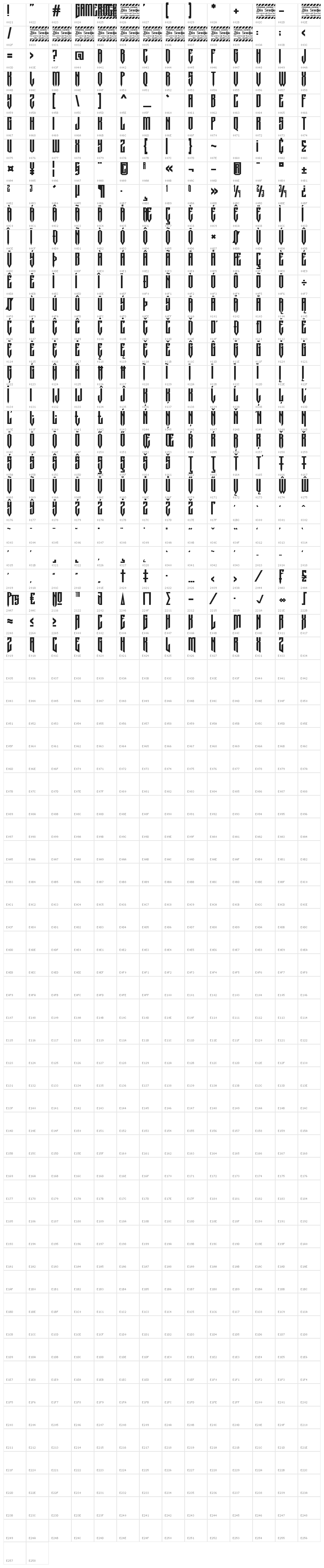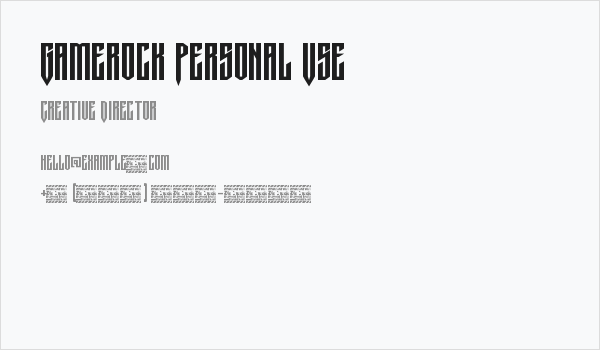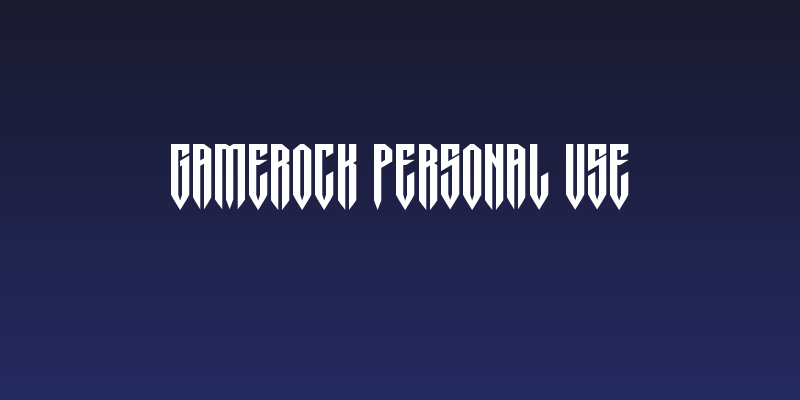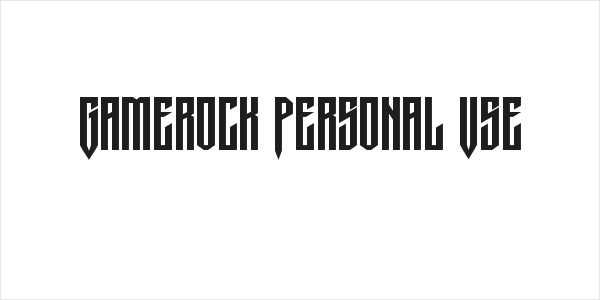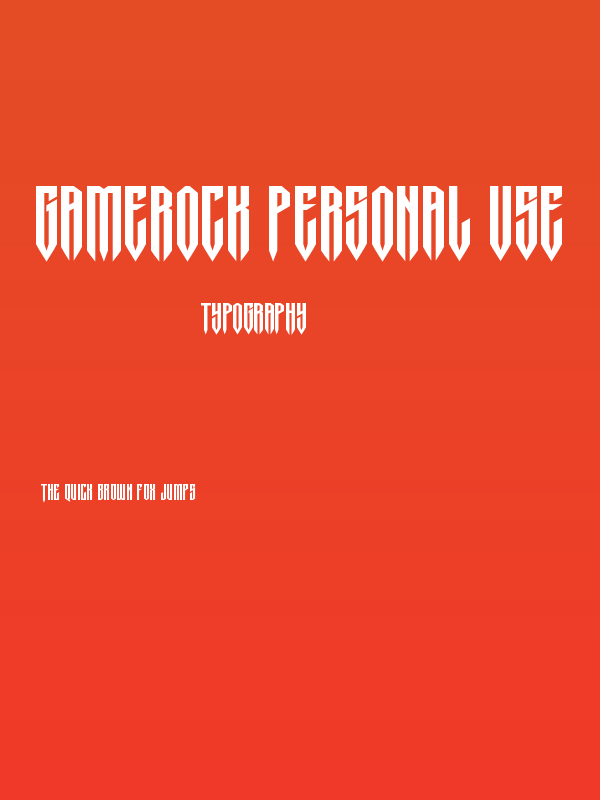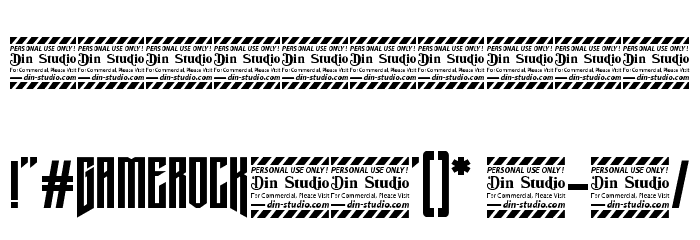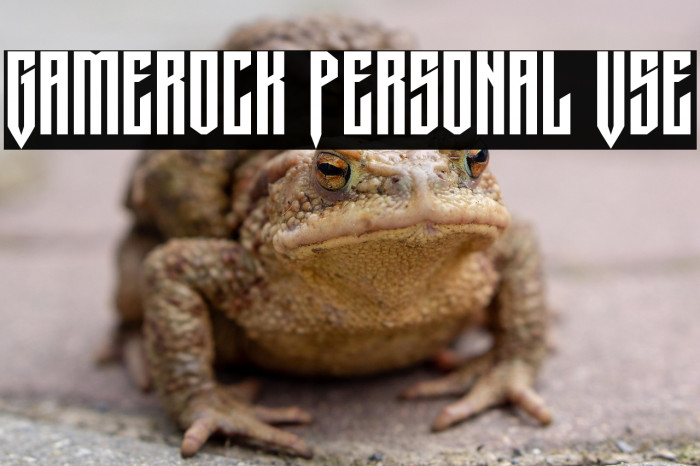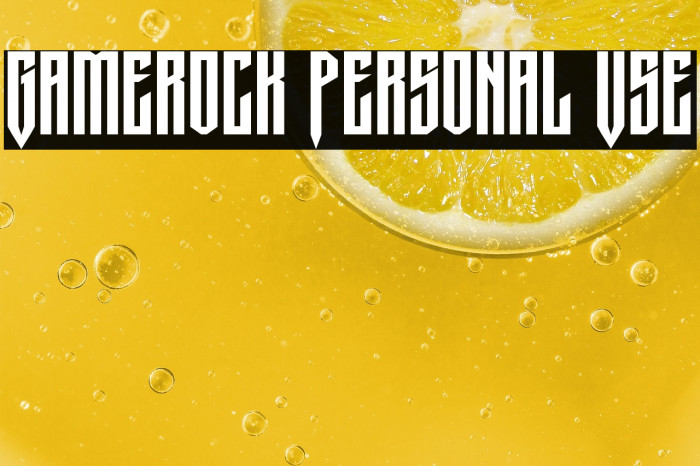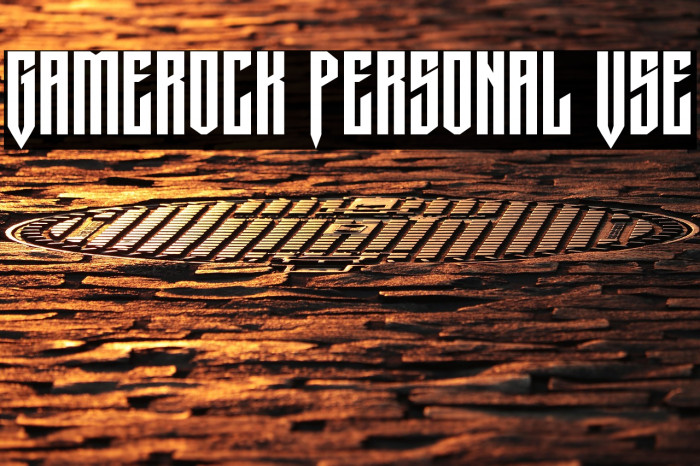
Gamerock Personal Use Font
Gamerock Personal Use Description
This font features a bold, geometric design with sharp angles and a strong presence. The characters are tall and narrow, creating a condensed appearance that emphasizes verticality. The uppercase and lowercase letters maintain a consistent style, with angular cuts and a modern, edgy look. The numerals and special characters follow the same design principles, ensuring uniformity across all glyphs. This font is highly stylized, making it ideal for attention-grabbing headlines or logos that require a contemporary and assertive aesthetic.
| Proposed Projects | Ideal for gaming logos, music album covers, posters, and branding that requires a bold statement. |